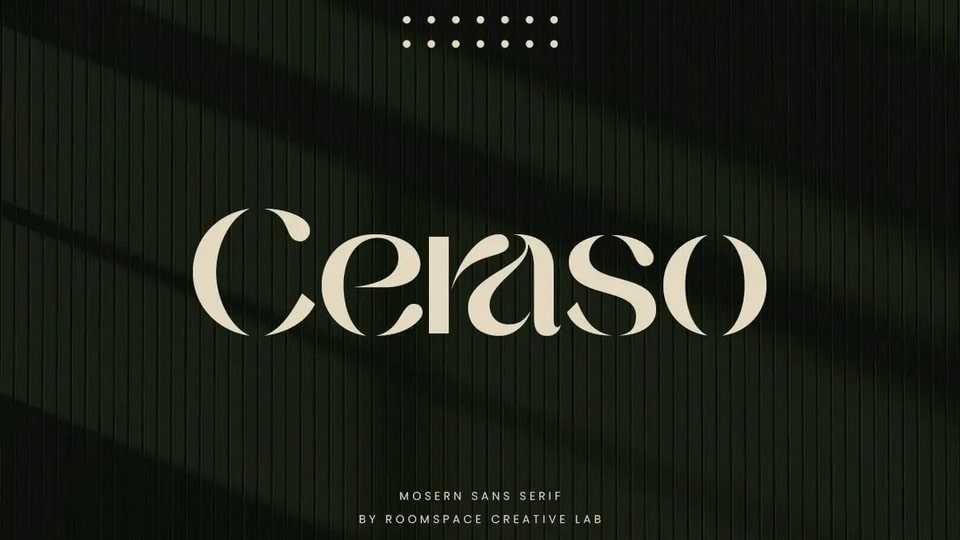
Download Ceraso font, a modern sans serif stencil typeface specifically designed for elegant branding and logo purposes. Combining contemporary design elements with the sharpness of stencil forms, Ceraso offers a clean and professional look